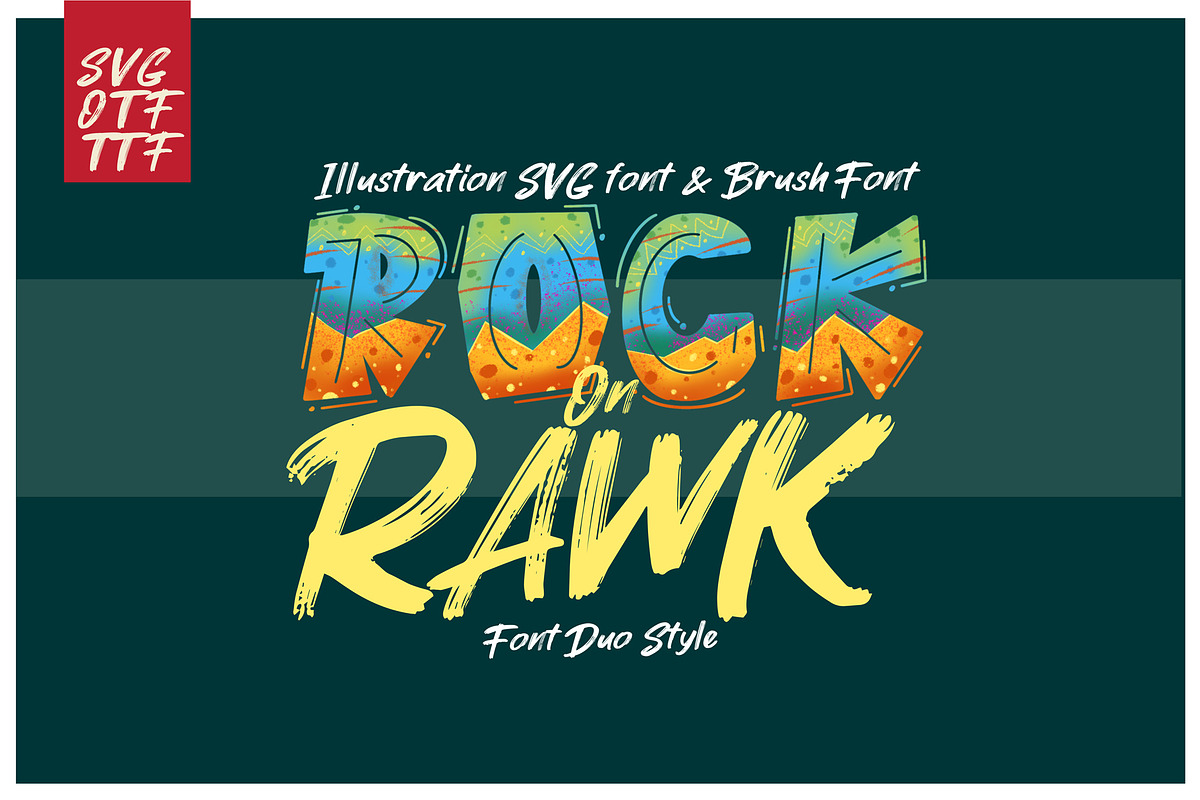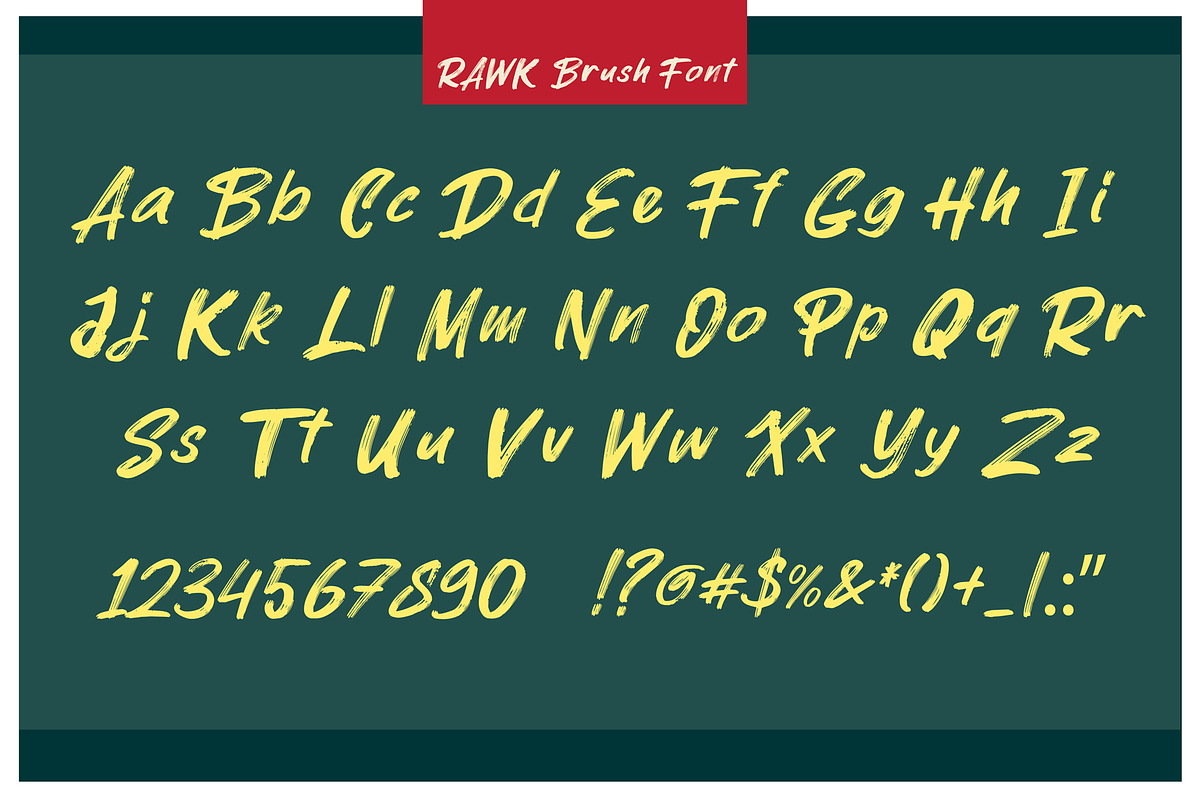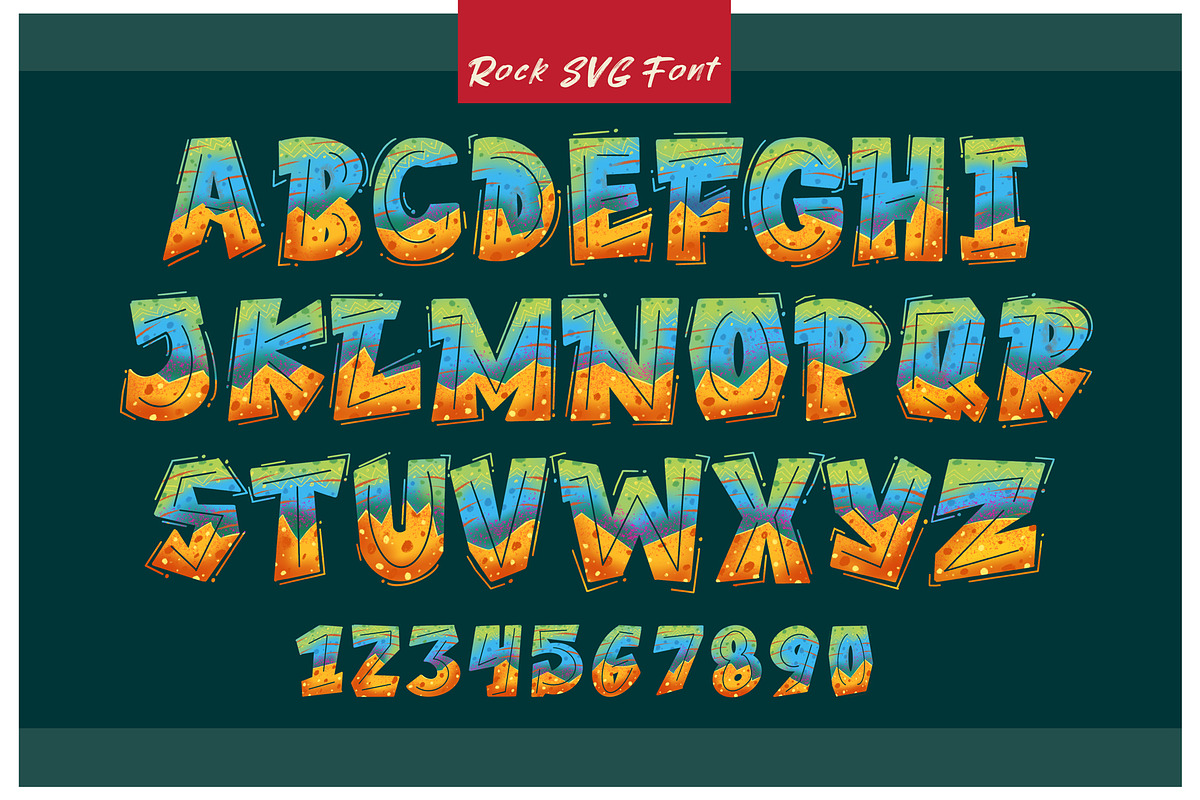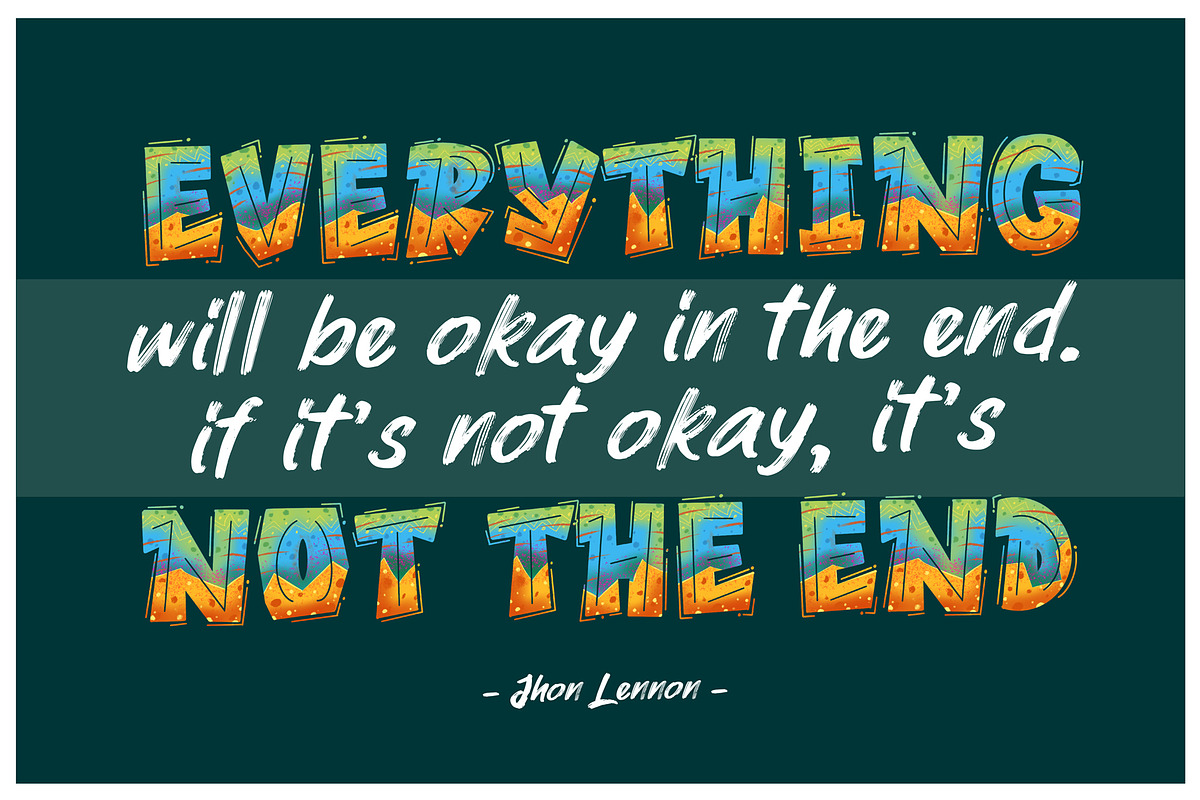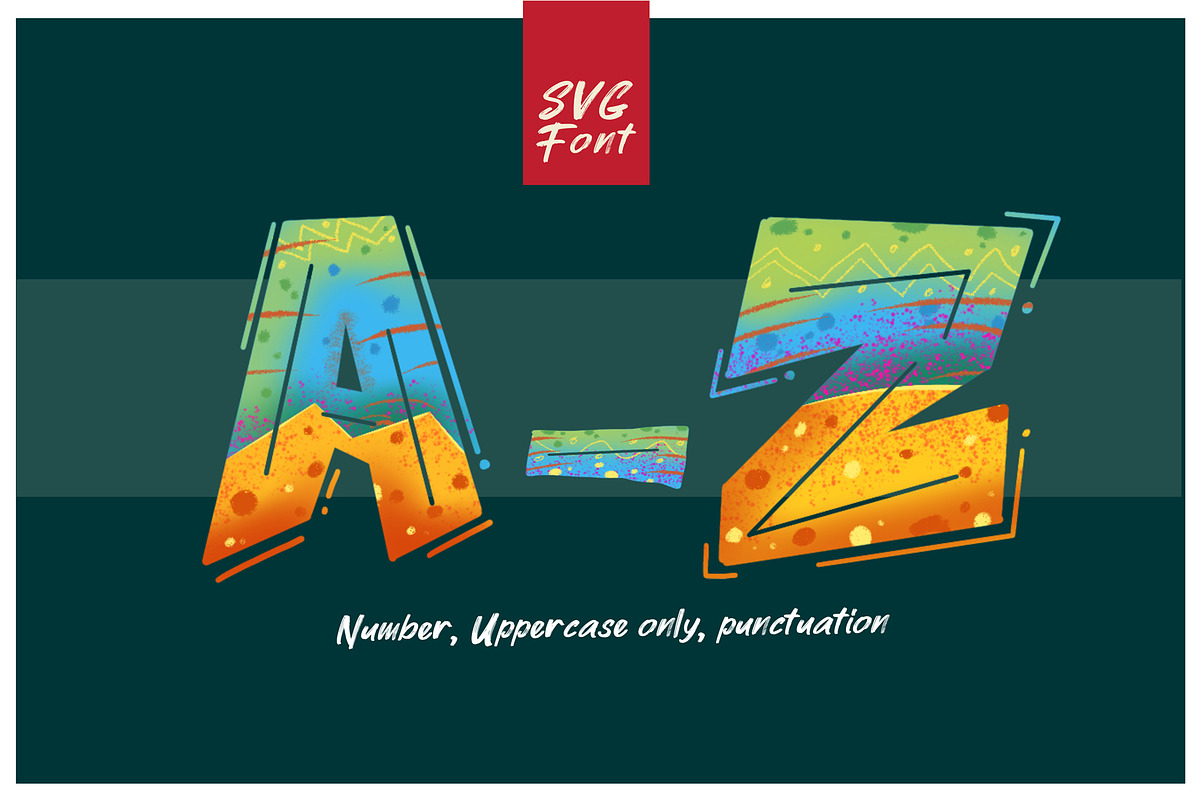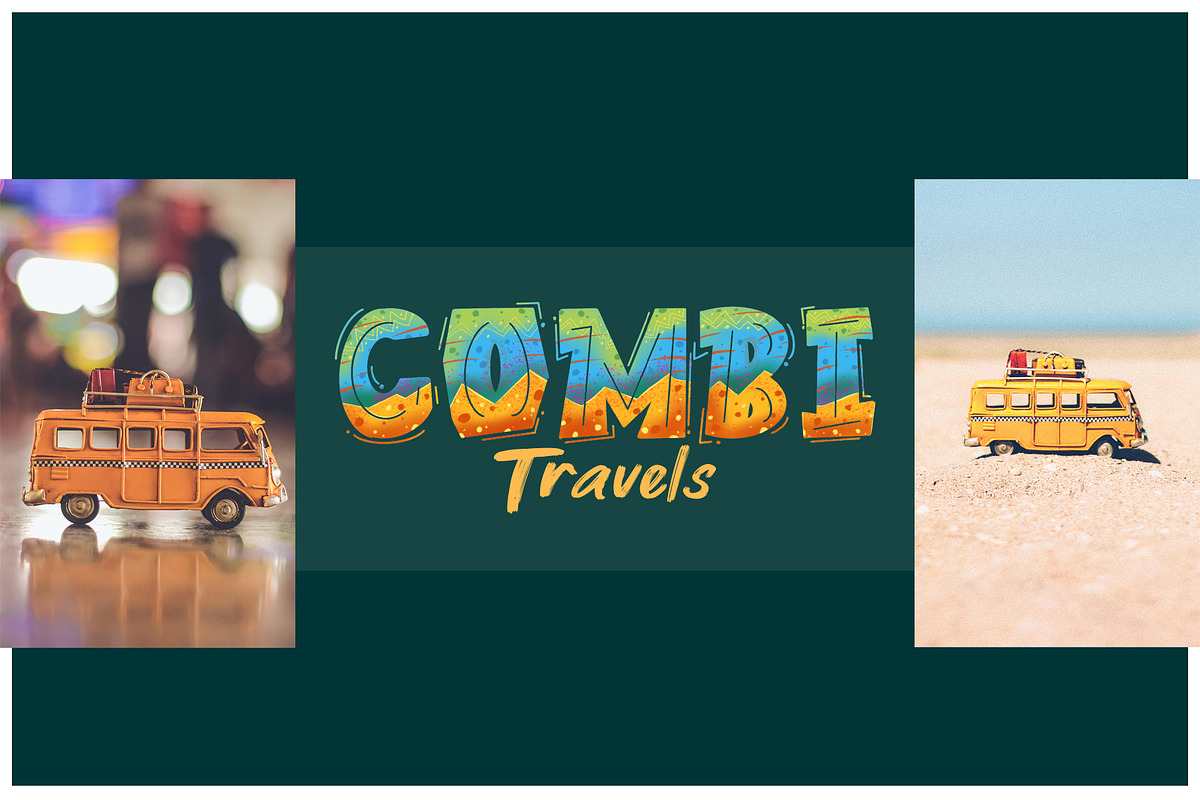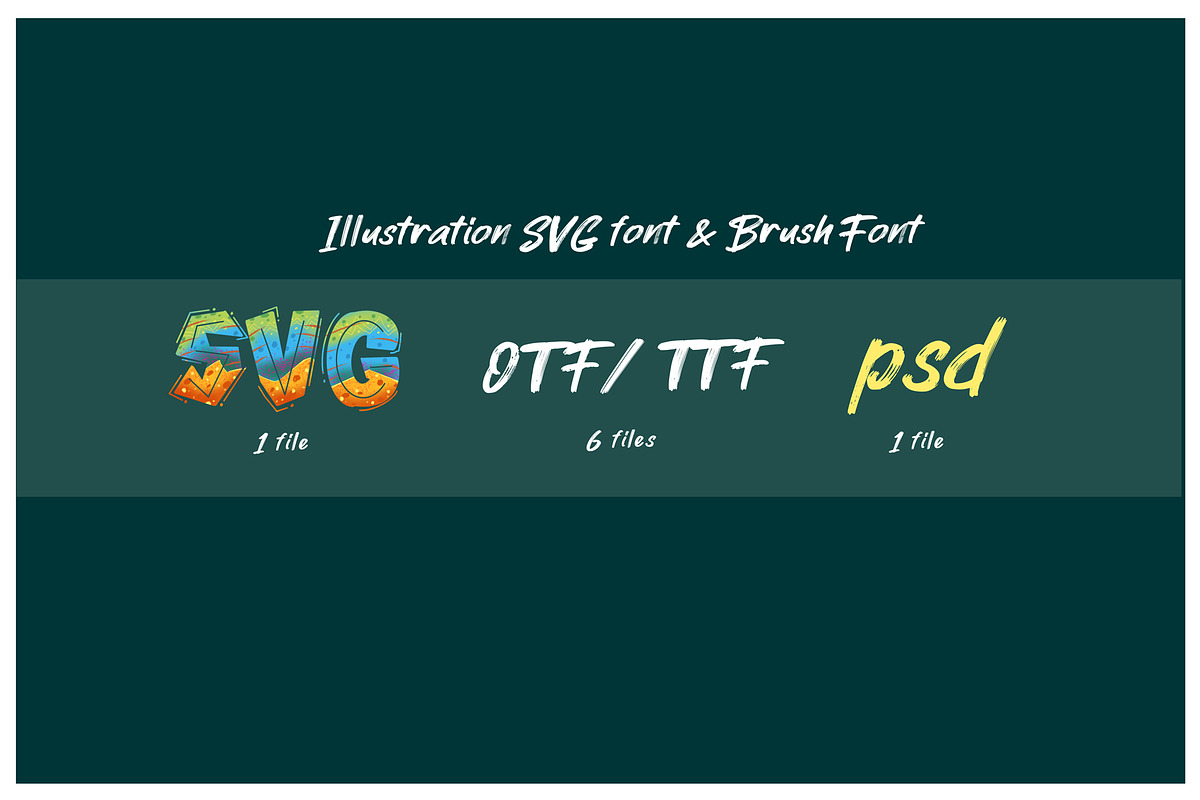
ROCK on RAWK | SVG Font Duo
ROCK on RAWK font duo, is a duo font was built from illustration idea to make a font, and brush make from natural brushed paint. Its perfect combination :)
ROCK on RAWK is a very unique font, blend of illustrations and brush paint ROCK SVG font that is thick with illustration and suitable as a children's book tagline and RAWK font is a bold brush suitable for complementing your design.